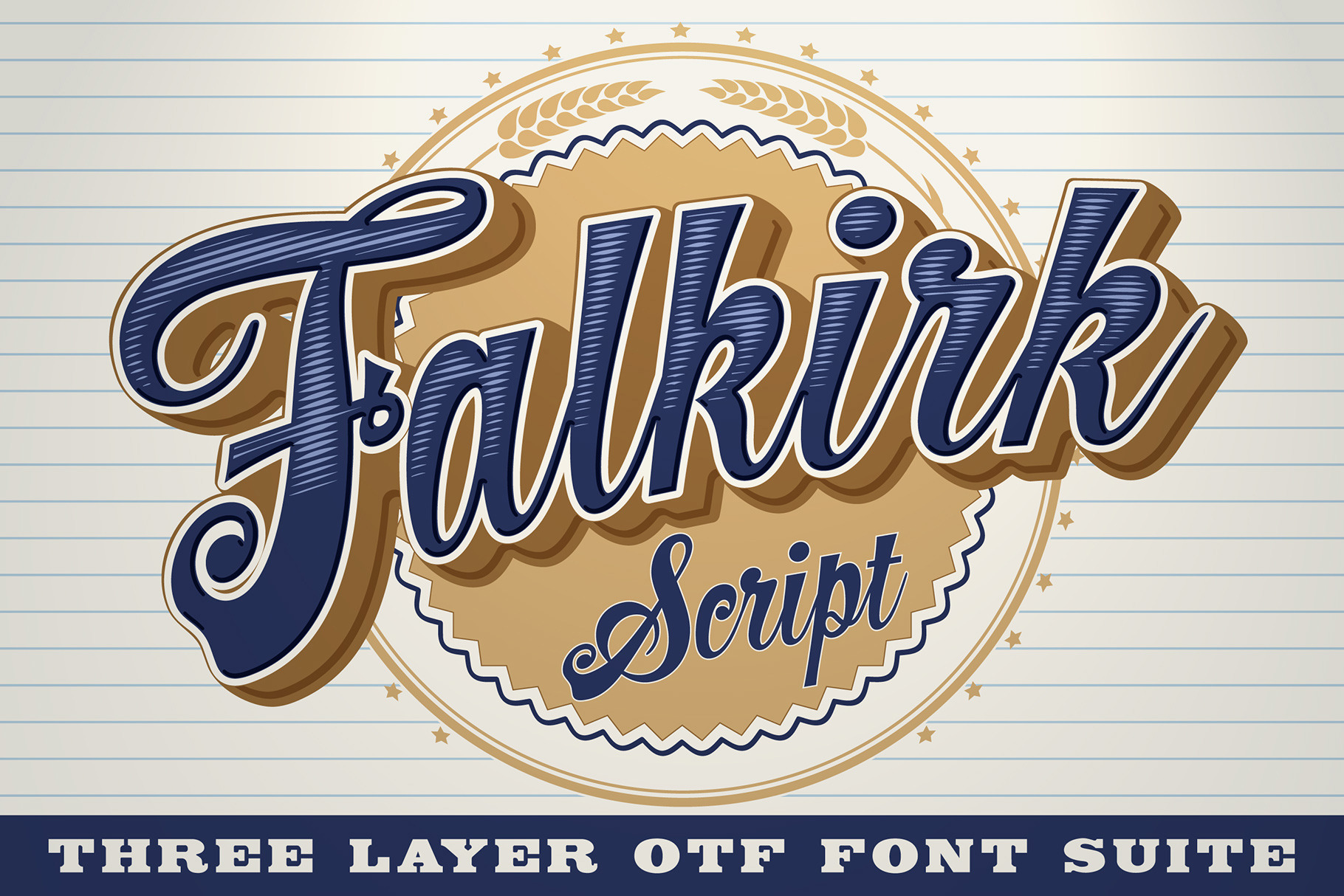
Falkirk Script Font Family
Introducing Falkirk Script, a three-font suite that is excellent for product branding, logos, t-shirts, high-end food and beverage labels, and much more. This collection includes the main letter body font (Falkirk Bold), an extruded shadow version, and finally a horizontal line engraving version that highlights the upper half of the letters. Stack the font variations in alignment, assign different colors, outlines, and/or gradients to each layer, and you'll see a wealth of versatile design possibilities opening up.
This script has a unique topheavy wedge effect in the lower case, and lyrical old-world script detailing in the capitals. The tapered sweep and simplified ascender design works extremely well in the context of curved arc or arched word designs.